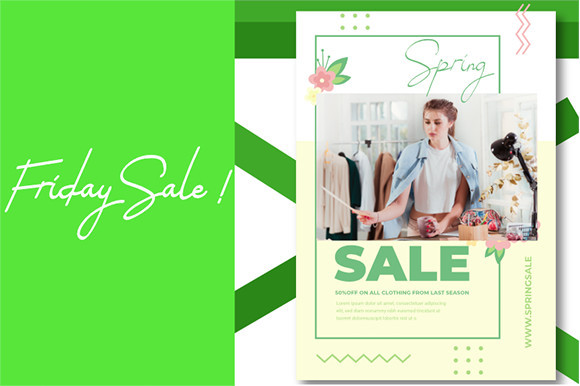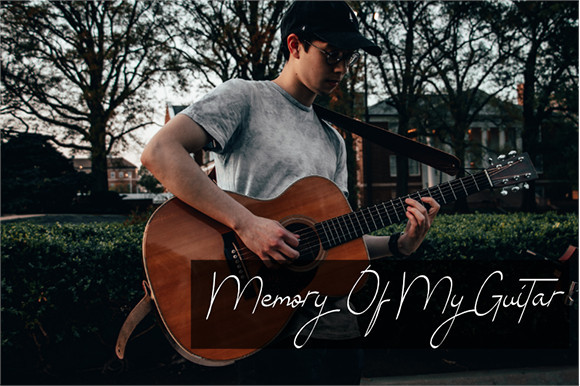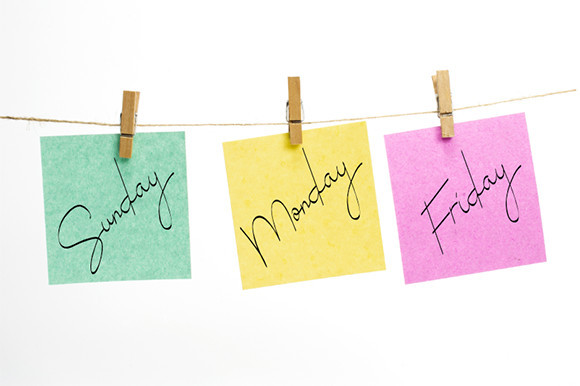
Bastray Font
Bastray is a delicate and simple lettered handwritten font. Modern, stylish and thin lettered, this font will make an great choice for each of your creations!